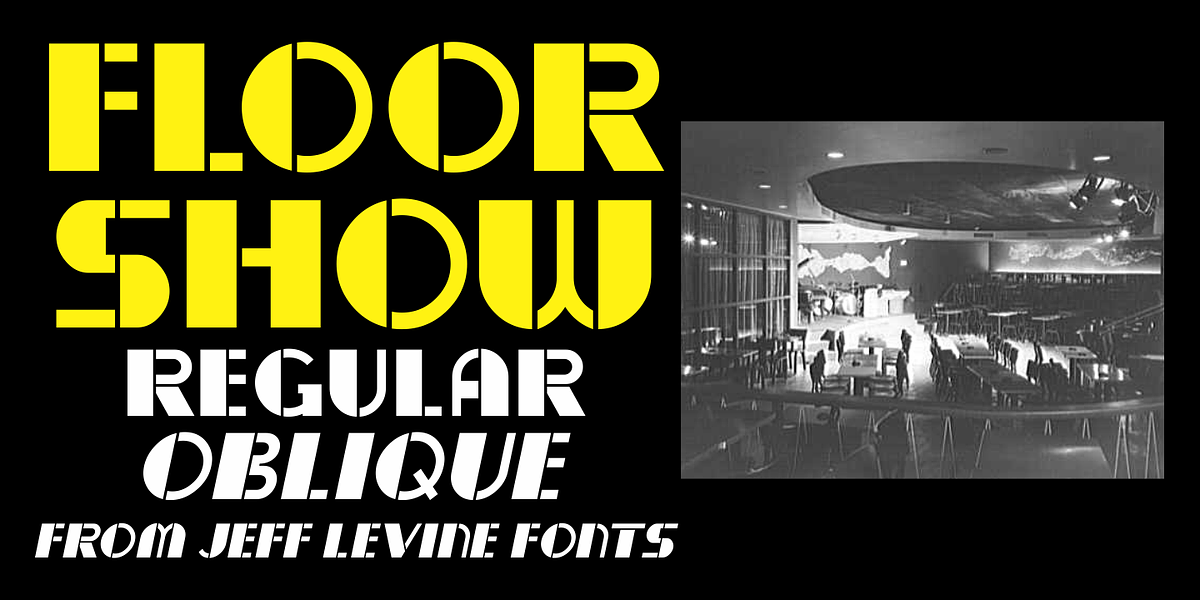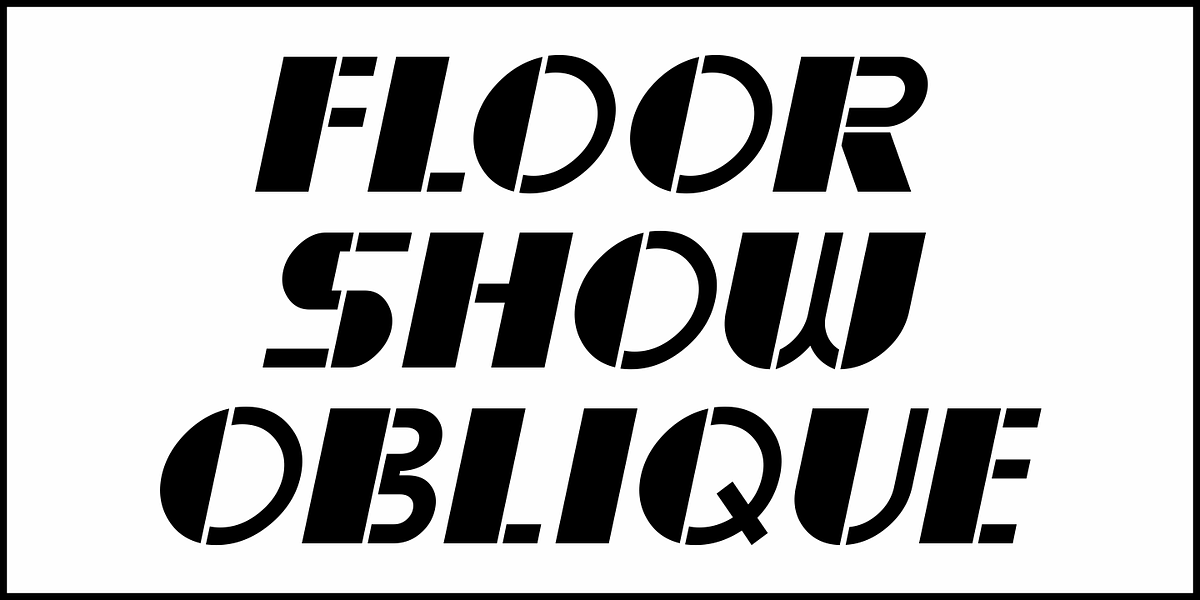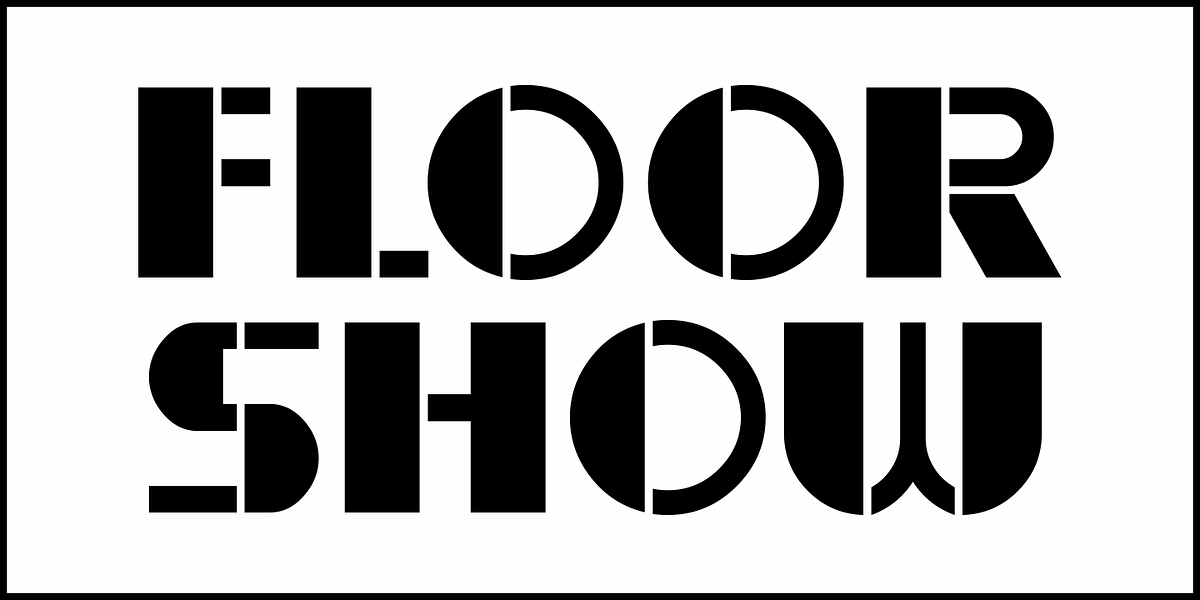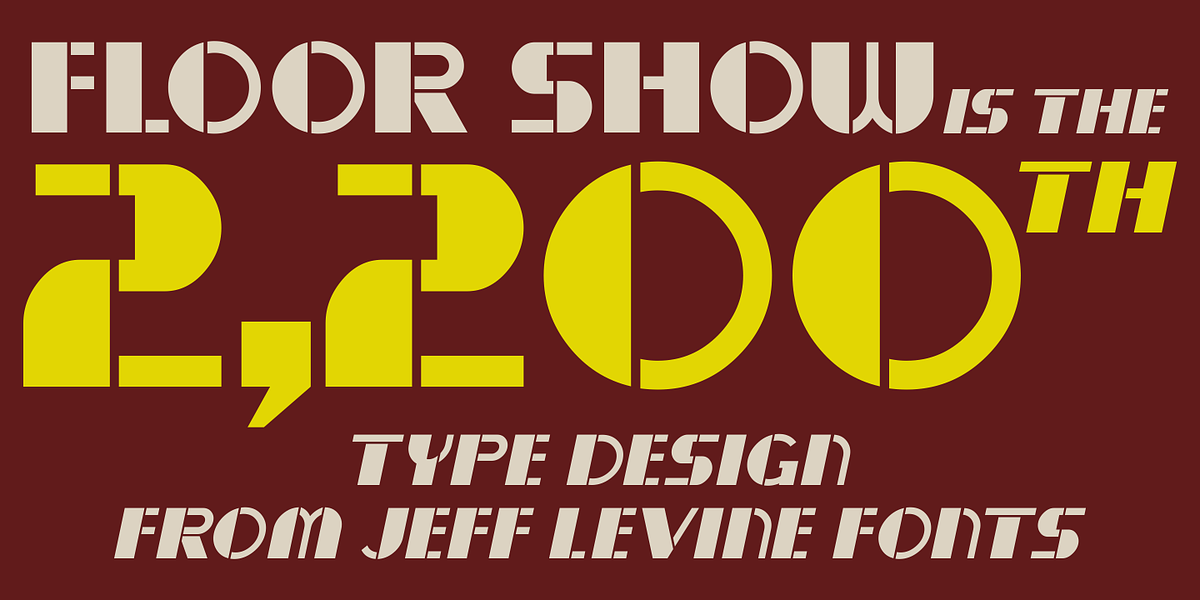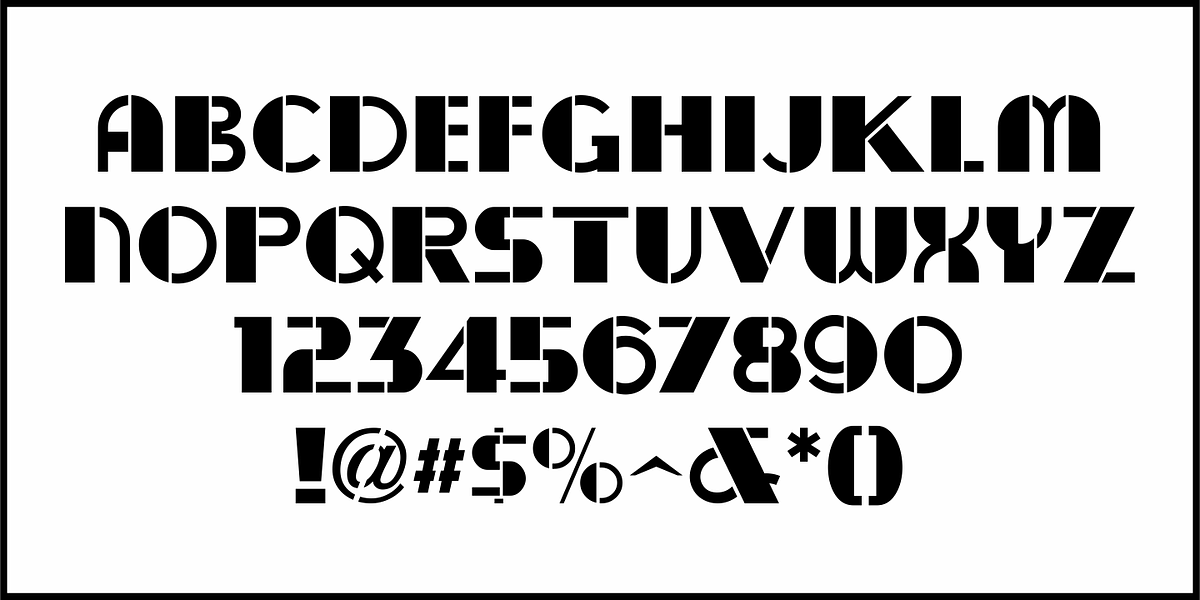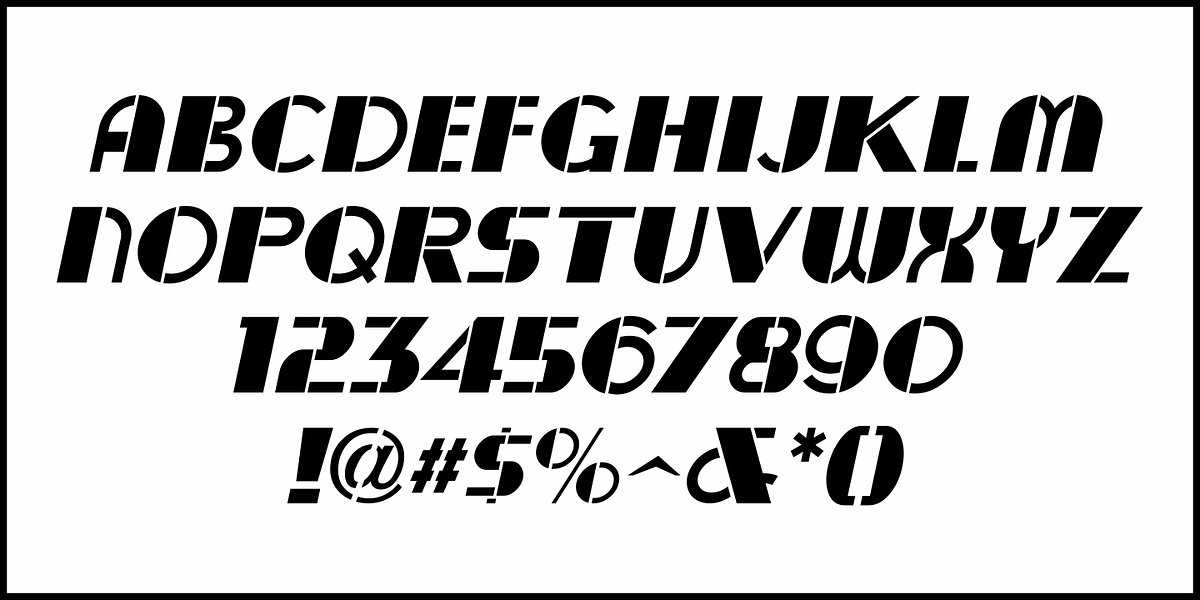
Floor Show JNL
A 1973 Polish film poster for the movie musical "Cabaret" may have had some strangely questionable artwork, but the word "Kabaret" was hand lettered in an interesting retro-Art Deco thick-and-thin style.
This bold sans serif stencil design is now available as Floor Show JNL in both regular and oblique versions.
Floor show is the 2,200th type design released by Jeff Levine Fonts.